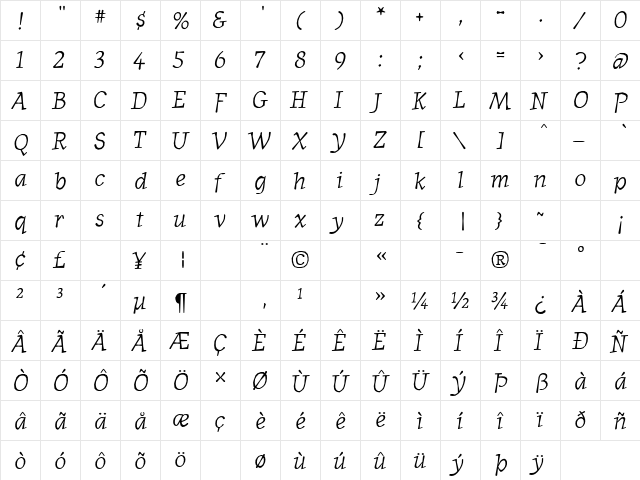
JournalItalicLining Italic Font Preview
JournalItalicLining Italic
Design Context for JournalItalicLining Typeface
JournalItalicLining offers clean, dependable letterforms without strong stylistic allegiance, making it a practical choice for designers who need flexibility. Its italic angle brings a sense of urgency and motion to the letterforms.
Pro Tip: Use JournalItalicLining for emphasis, pull quotes, and subheadings where its slanted energy can add rhythm to the layout.